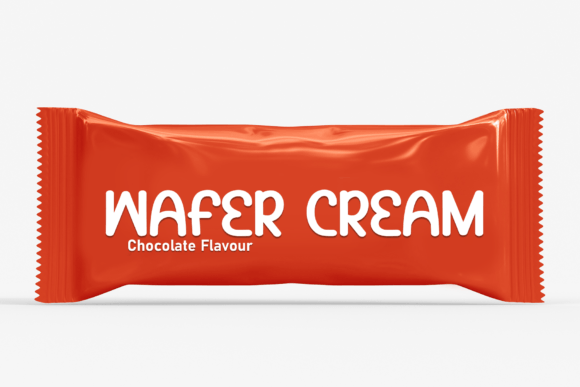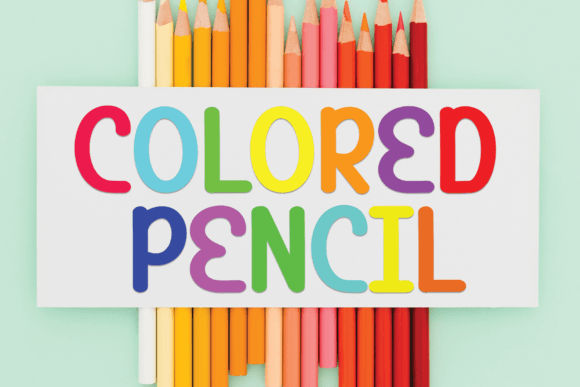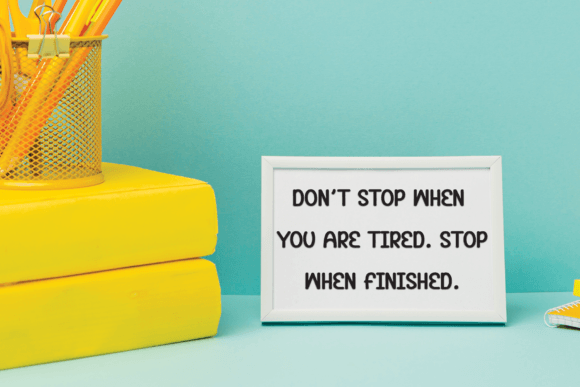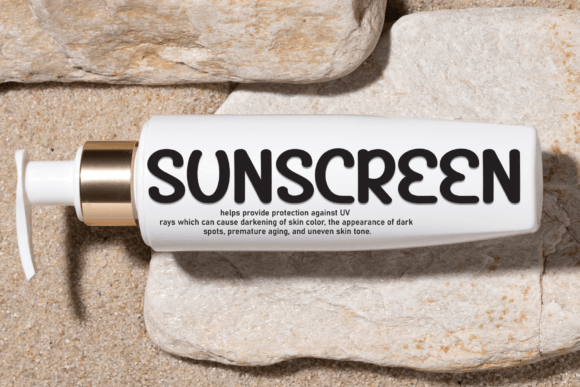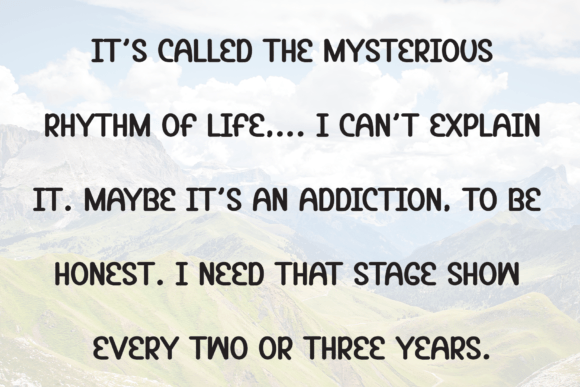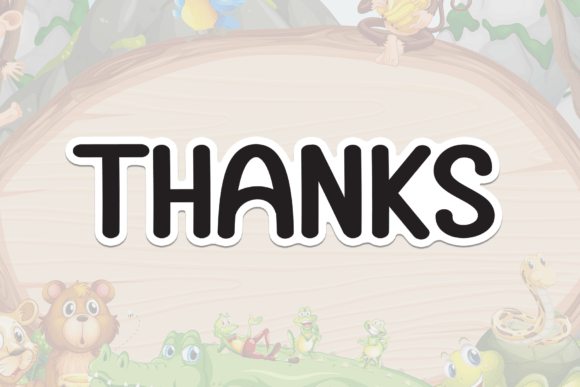
Introducing Animal Font: The Sweet and Friendly Handwritten Display Font
Are you looking for a font that can add a touch of whimsy and fun to your designs? Look no further than Animal Font, a sweet and friendly handwritten display font that’s perfect for a variety of creative projects. In this article, we’ll take a closer look at Animal Font, its features, and how you can use it to elevate your designs.
What is Animal Font?
Animal Font is a beautiful, handwritten display font that’s designed to bring a smile to your face. With its cute and fun appearance, this font is ideal for writing wedding invitations, cards, or any other design that might need a fun touch. Whether you’re a designer, crafter, or DIY enthusiast, Animal Font is a great addition to your font collection.
Key Features of Animal Font
- Handwritten display font: Animal Font is a carefully crafted handwritten font that’s perfect for headlines, titles, and short text passages.
- Cute and fun: This font is designed to be playful and fun, making it perfect for designs that require a lighthearted touch.
- Ideal for wedding invitations and cards: Animal Font is a great choice for wedding invitations, birthday cards, and other celebratory designs.
- Easy to read: Despite its playful appearance, Animal Font is easy to read, making it perfect for short text passages.
How to Use Animal Font in Your Designs
Animal Font is a versatile font that can be used in a variety of design projects. Here are some ideas to get you started:
- Wedding invitations: Use Animal Font to create beautiful, whimsical wedding invitations that set the tone for a fun and playful wedding celebration.
- Birthday cards: Add a personal touch to your birthday cards with Animal Font, which is perfect for creating fun and playful designs.
- Social media graphics: Use Animal Font to create eye-catching social media graphics that showcase your brand’s personality.
- DIY projects: Animal Font is perfect for DIY enthusiasts who want to add a personal touch to their projects, such as handmade cards, gift tags, and more.
Tips for Pairing Animal Font with Other Fonts
To get the most out of Animal Font, try pairing it with other fonts that complement its playful and whimsical appearance. Here are some tips:
- Pair with a serif font: Pair Animal Font with a serif font, such as Times New Roman or Georgia, to create a nice contrast between the playful and traditional fonts.
- Pair with a script font: Animal Font also pairs well with other script fonts, such as Pacifico or Great Vibes, to create a cohesive and elegant look.
- Experiment with font sizes: Don’t be afraid to experiment with different font sizes to create visual interest and hierarchy in your designs.
Animal Font is a sweet and friendly handwritten display font that’s perfect for designers, crafters, and DIY enthusiasts who want to add a touch of whimsy and fun to their designs. With its cute and playful appearance, this font is ideal for wedding invitations, cards, social media graphics, and more. Whether you’re looking to create a fun and playful design or simply want to add a personal touch to your projects, Animal Font is a great choice.
Overall, Animal Font is a beautiful and versatile font that’s perfect for anyone who wants to add a touch of fun and whimsy to their designs. With its cute and playful appearance, this font is sure to bring a smile to your face and inspire your creativity.